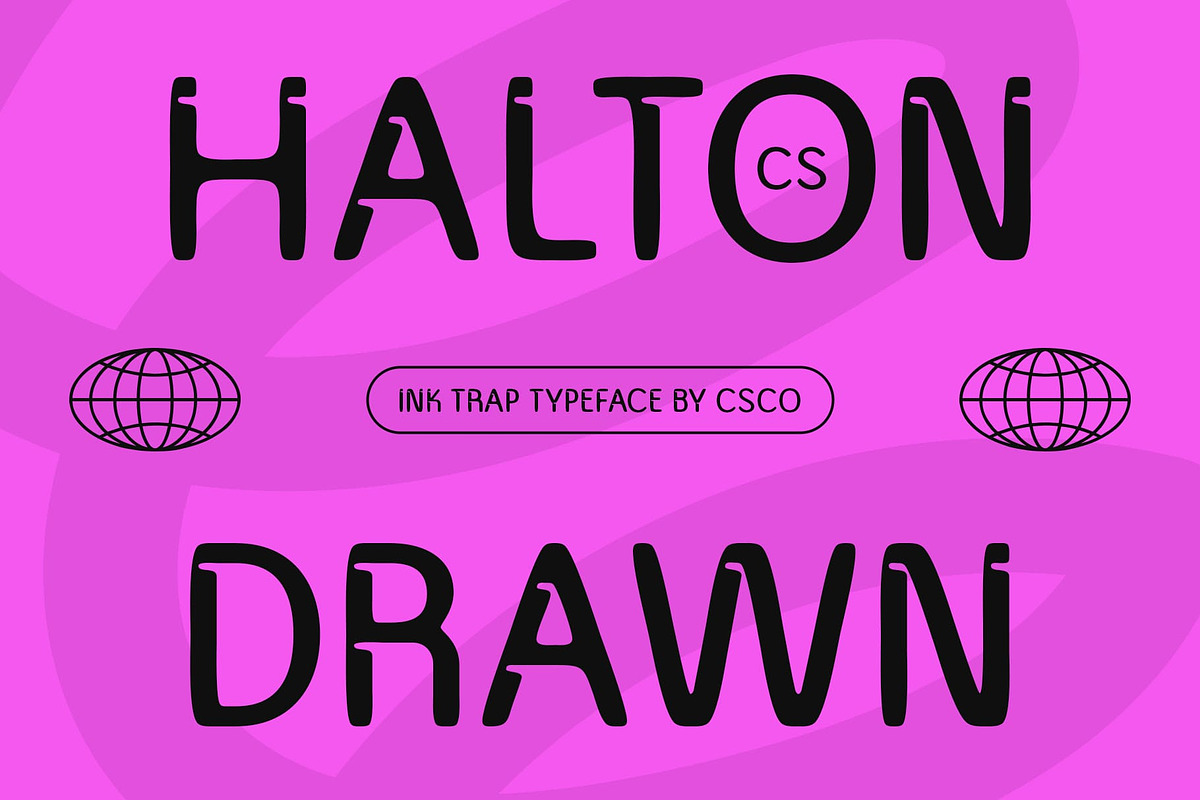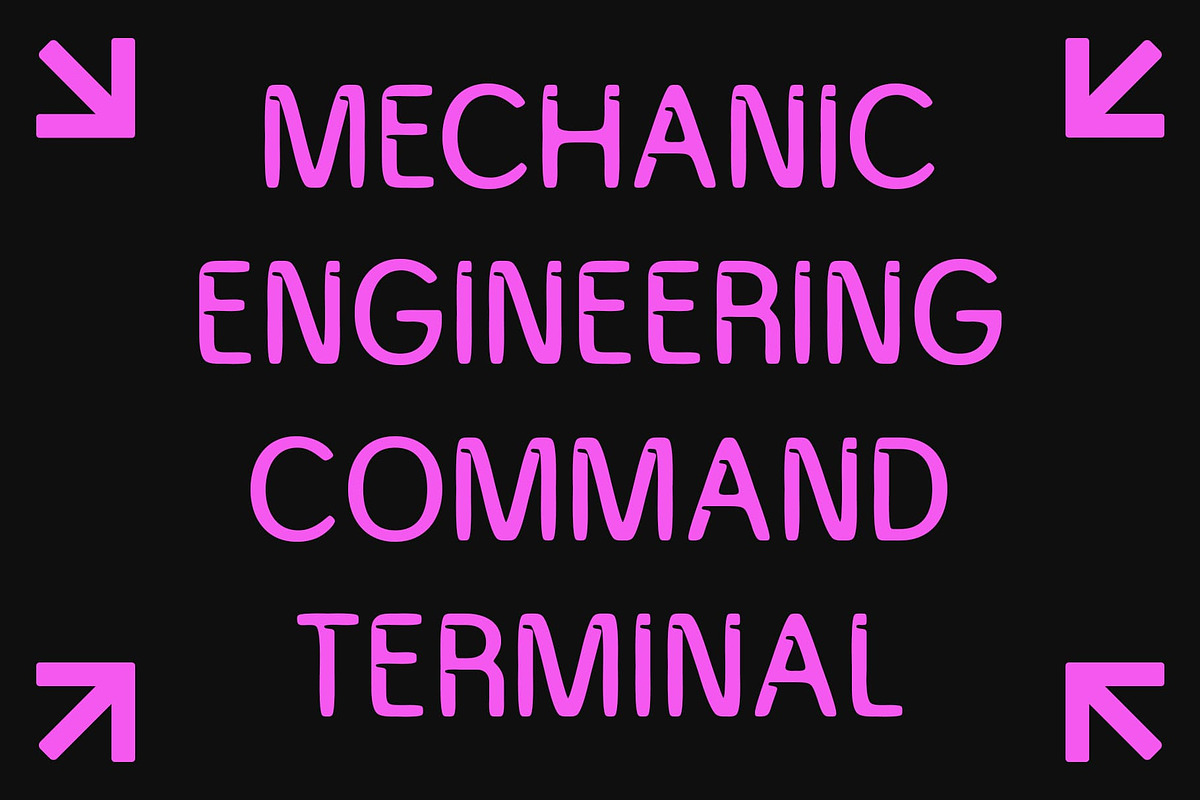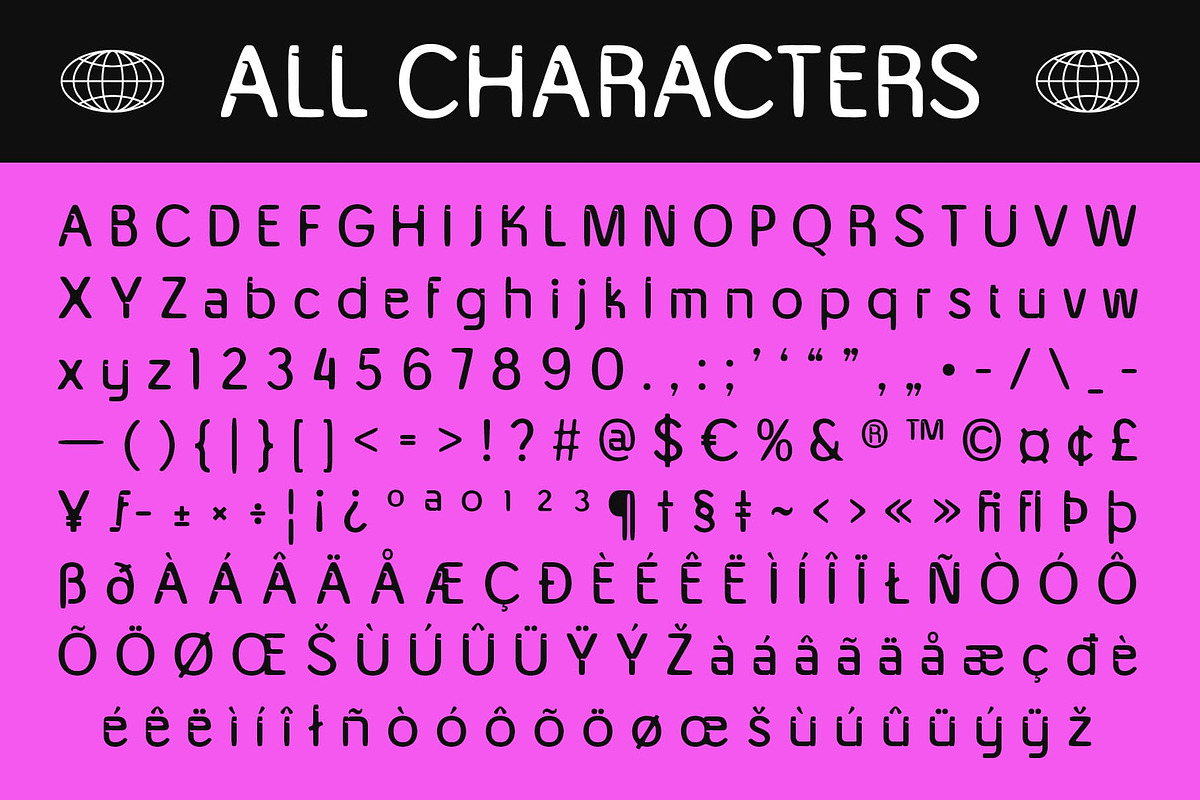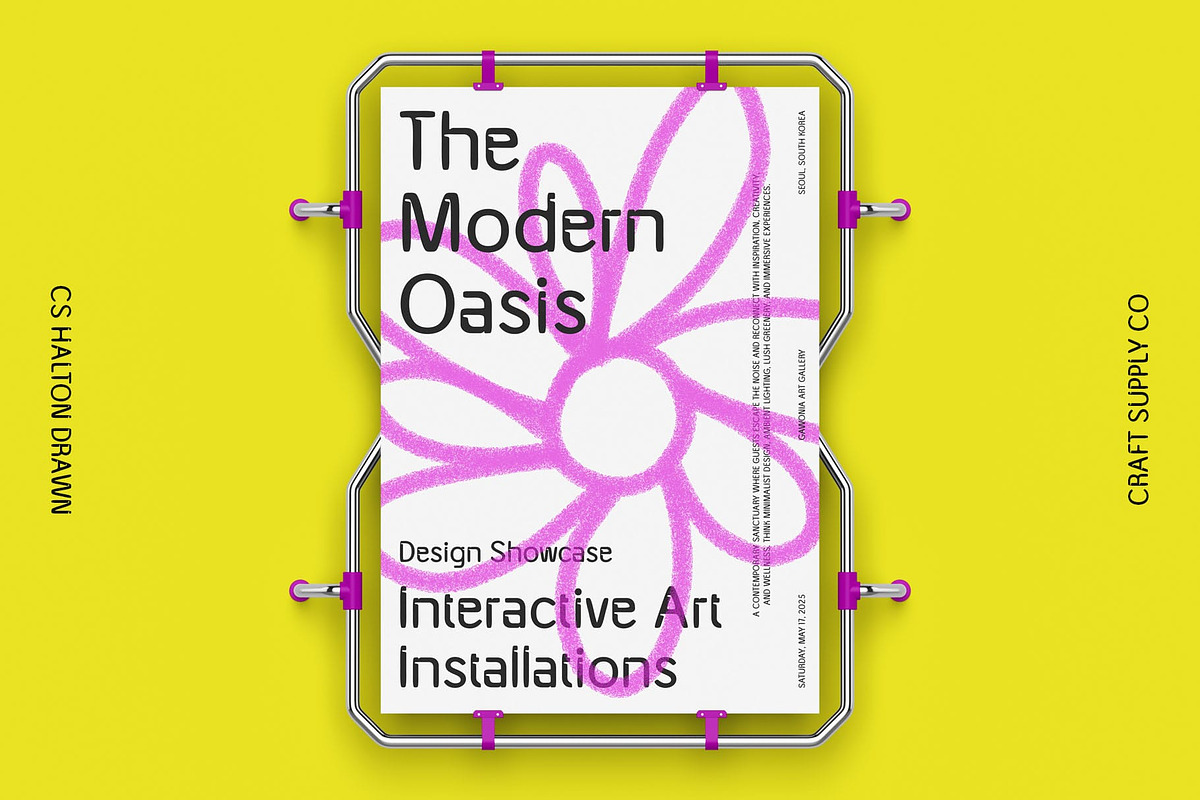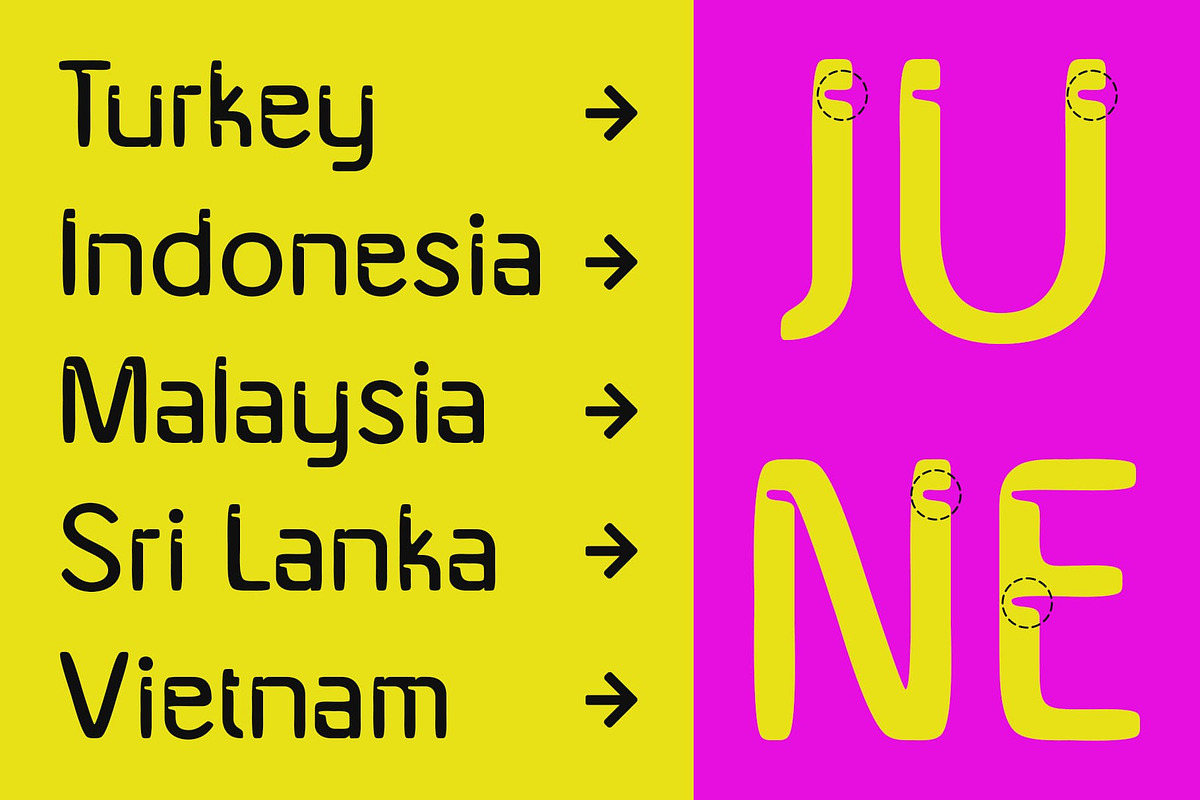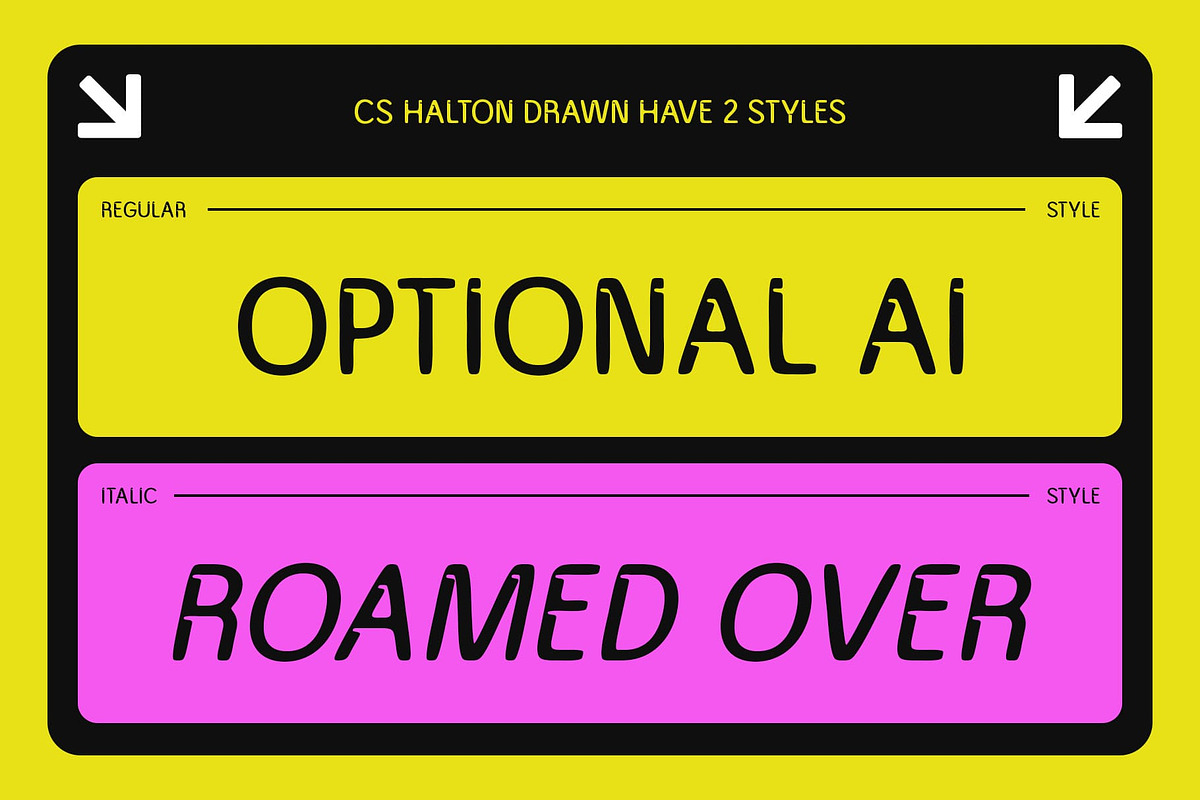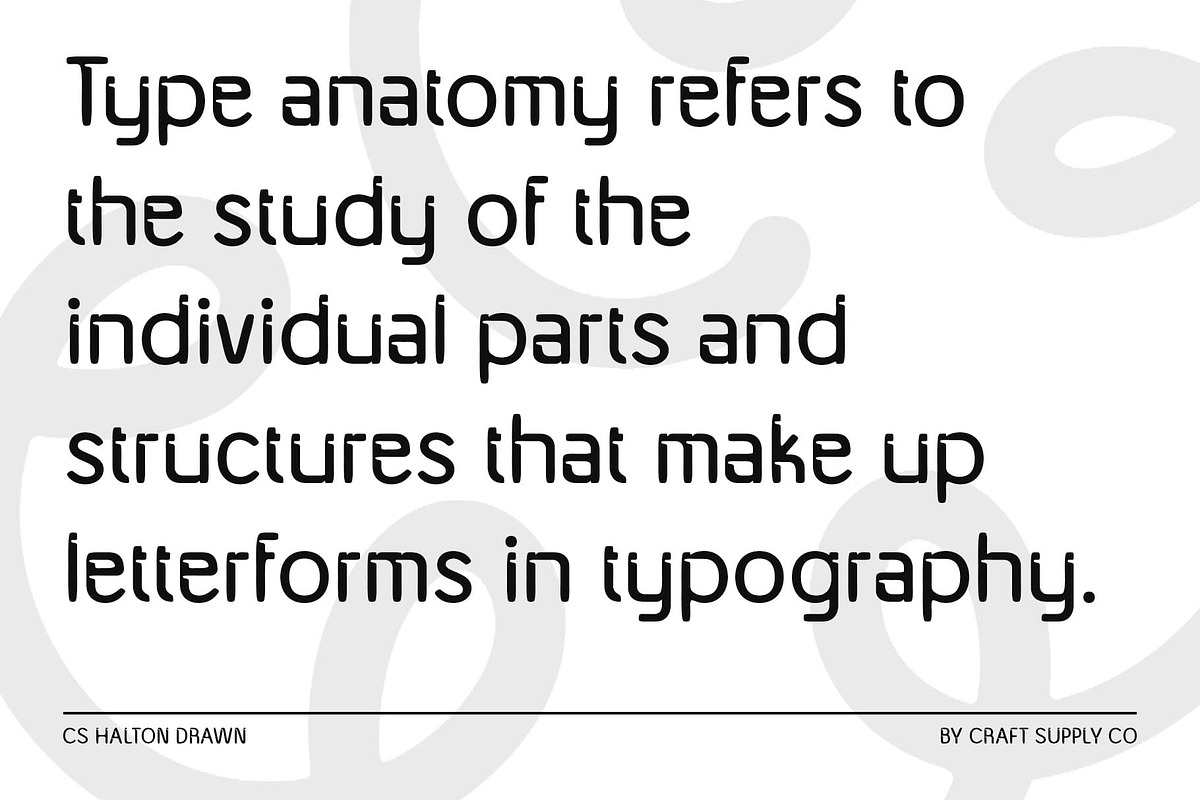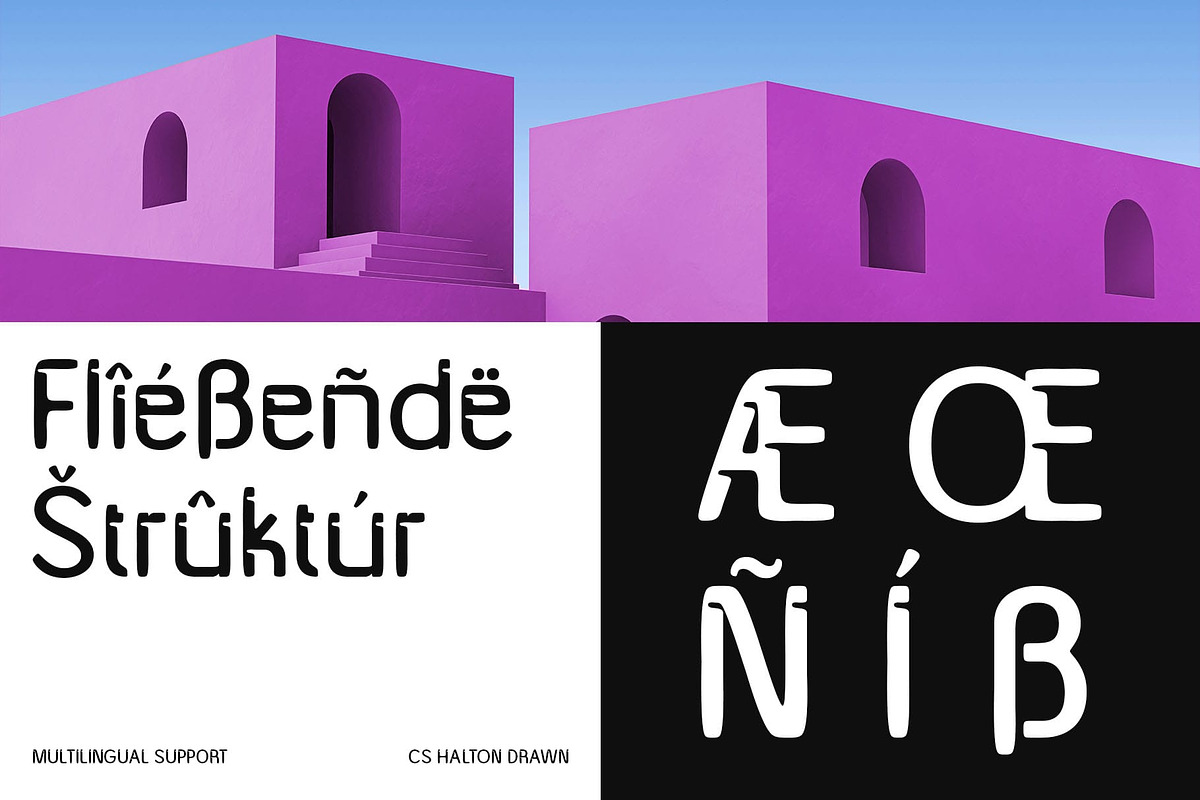
CS Halton Drawn
CS Halton Drawn: Modern Precision with an Artistic Touch
Geometric Sans-Serif with Inktrap Details This is a modern sans-serif font that expertly combines inktrap and geometric shapes, creating a clean, contemporary design that offers both structure and style. The inktrap features soften the letter corners, enhancing readability while maintaining a sleek and modern aesthetic.
Handmade Texture for Unique Character What sets this inktrap font apart is its subtle drawn effect, which infuses the font with a natural, handmade texture. This effect adds a distinctive, organic feel to the geometric forms, bringing a touch of craftsmanship to the otherwise precise design.
Balanced Design for Readability and Aesthetics Designed with balance in mind, its maintains excellent readability while offering a fresh, modern appearance. The geometric shapes keep it clean and structured, while the inktrap and drawn details add depth and personality, making it versatile for various design needs.
Perfect for Graphic Design with Modern Flair Whether used for branding, editorial work, or digital projects, this inktrap modern font is ideal for graphic designs that seek a harmonious blend of readability, modern aesthetics, and artistic flair. Its contemporary style with a handmade twist makes it a strong choice for creative projects that require both clarity and uniqueness.